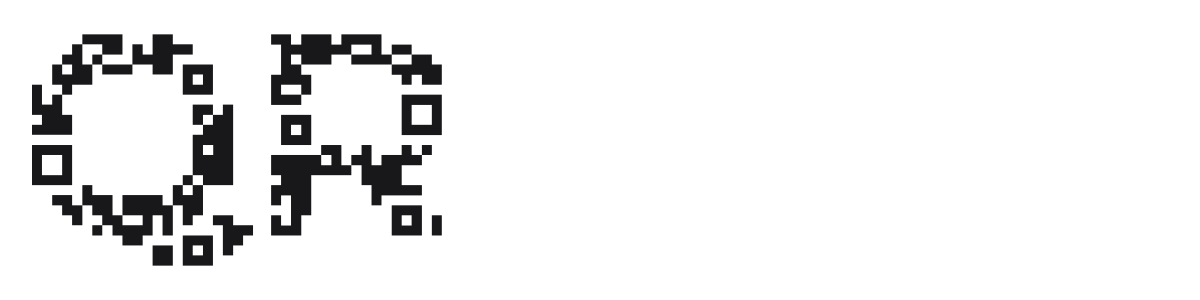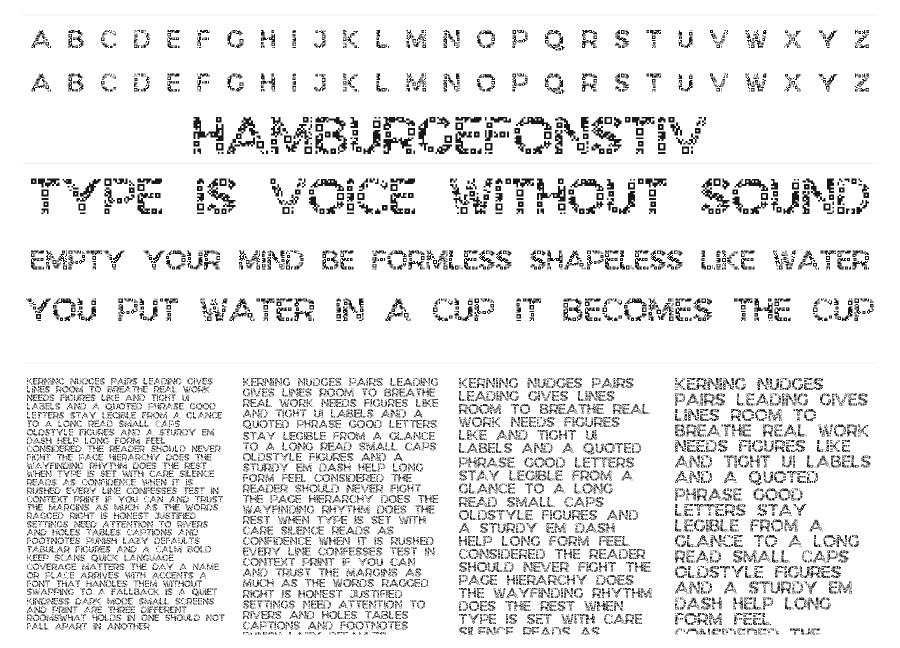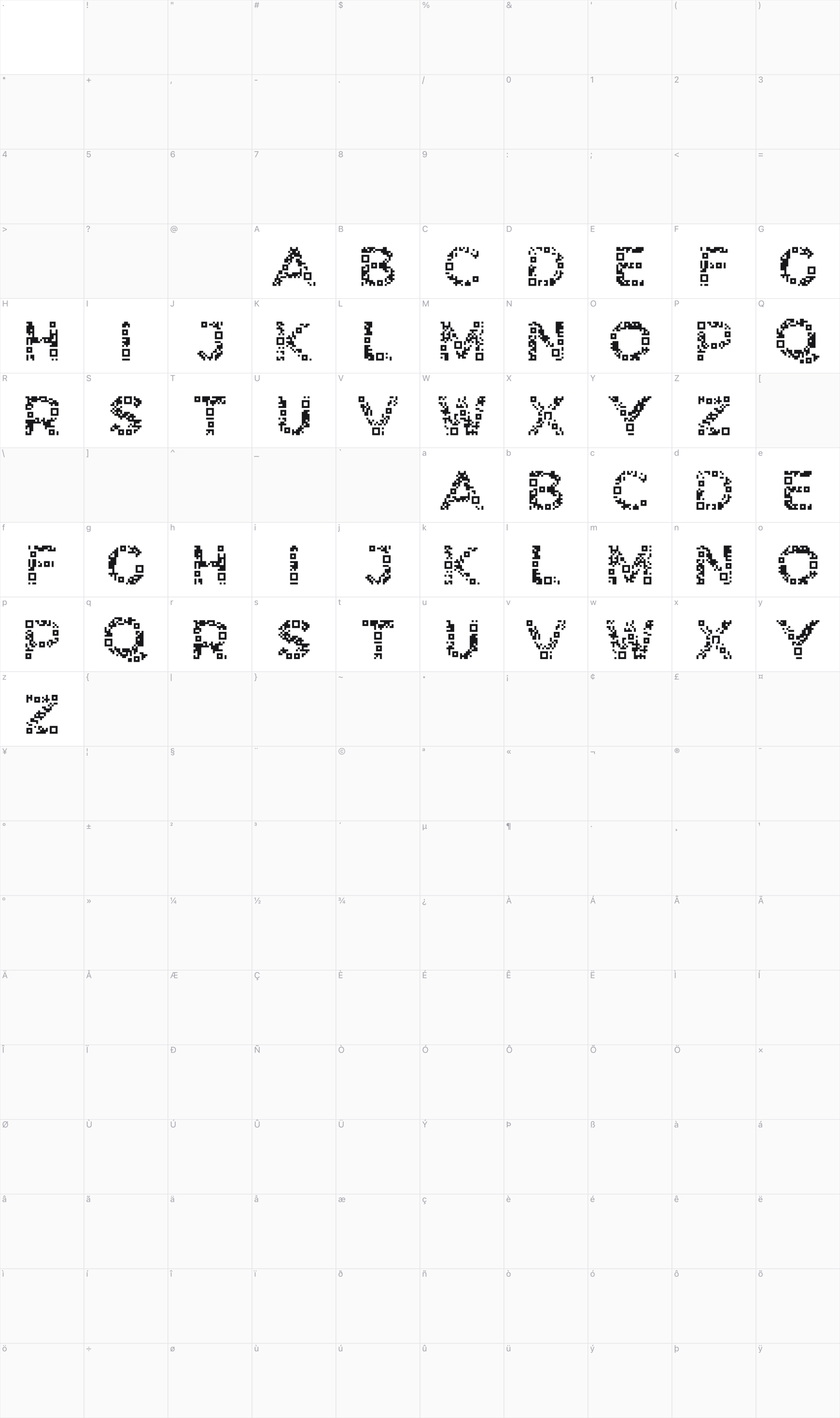
QR
by Christopher Goggs
QR is a novelty display font built entirely from the visual language of QR codes. Each character is formed from arrangements of small square modules, giving the text the appearance of scannable matrix patterns. Bold and immediately recognizable, it trades readability for conceptual impact.